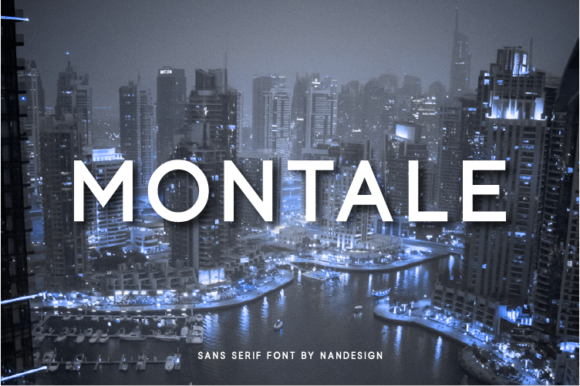
Behold Montale Font, a minimalistic sans serif font family crafted for those seeking sophistication in their design endeavors. Step into the world of typography elegance and let Montale's captivating curves and clean lines elevate your creations to new heights of visual appeal.
With its intuitive design and easy readability, Montale stands as the perfect choice for crafting eye-catching headings, captivating logos, and stunning invitations that leave a lasting impression. Its versatile nature empowers you to transform ordinary text into extraordinary expressions, adding a touch of charm to any project.
Journey through the realm of seamless readability with Montale's thoughtfully crafted characters, designed to dance harmoniously on both digital and printed media. Let your words flow effortlessly across the screen or paper, captivating your audience with every stroke.
Unleash your creativity and make a bold statement with Montale, the font that transforms the mundane into the magnificent. Let your designs radiate sophistication, elegance, and a touch of timeless charm.